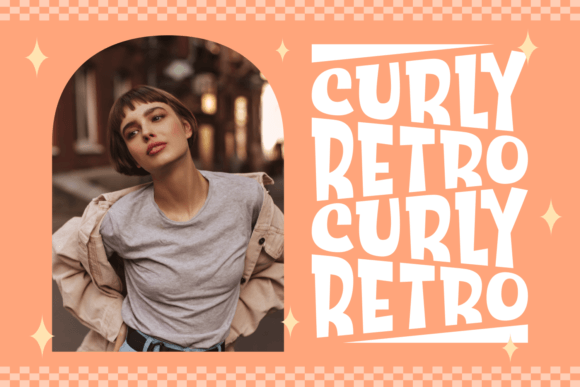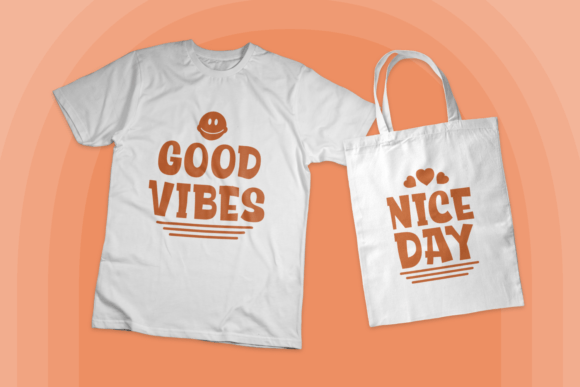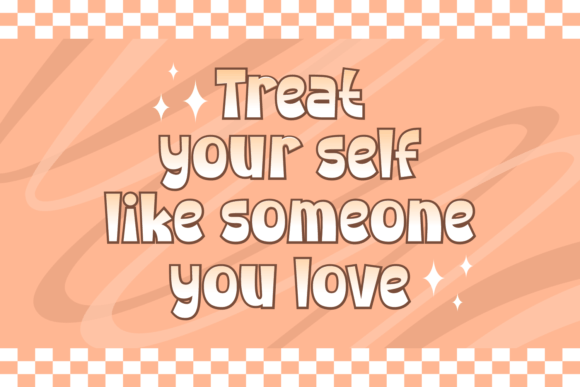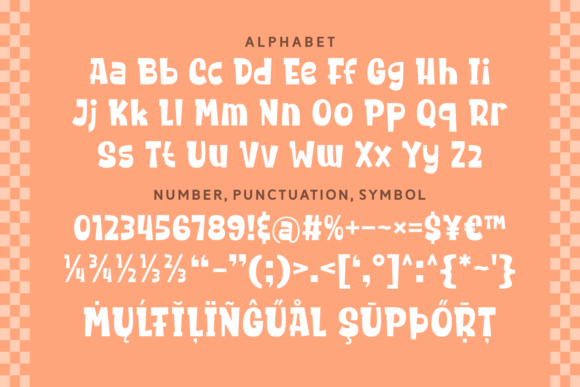
The Ultimate Guide to Casger Font: Elevate Your Designs with a Chunky Retro Twist
I’ll never forget the time I was working on a project for a client’s vintage-themed party invitation. I had the design concept nailed down, but I just couldn’t find the perfect font to bring it all together. That’s when I stumbled upon Casger Font – a chunky, retro-style display font that instantly caught my eye. ✨ In this article, I’ll share my experience with Casger, its features, and how to make the most of it in your designs.
An Honest Review of Casger Font
So, what makes Casger Font so special? Here are some of the things I love:
- ✅ Unique Retro Style: Casger’s chunky, retro aesthetic is perfect for creating eye-catching typography designs that stand out.
- ✨ Cheerful and Playful: This font is guaranteed to add a dash of fun and personality to any design.
- 💡 Versatile: Use Casger for posters, cards, websites, apparel, headlines, titles, advertisements, branding, and more.
Of course, no font is perfect. Here are a few quirks to keep in mind:
- 🤔 Limited Use Cases: Due to its chunky style, Casger might not be the best fit for body text or small font sizes.
- ⚠️ Glyph Limitations: While Casger has a range of glyphs, it might not have every special character you need.
The Story Behind Casger Font
While the origins of Casger Font are shrouded in mystery, it’s clear that the designer was inspired by the retro and vintage aesthetics of the past. Imagine a designer rummaging through old typography books, inspired by the chunky, playful fonts of the 70s and 80s. That’s how Casger was born – a font that’s equal parts nostalgic and modern.
| What type of designs is Casger Font best suited for? | Casger Font is perfect for designs that need a bold, eye-catching typography, such as posters, cards, websites, apparel, headlines, titles, advertisements, and branding. |
| Is Casger Font suitable for body text? | Due to its chunky style, Casger Font might not be the best fit for body text or small font sizes. It’s better suited for headlines, titles, and short text elements. |